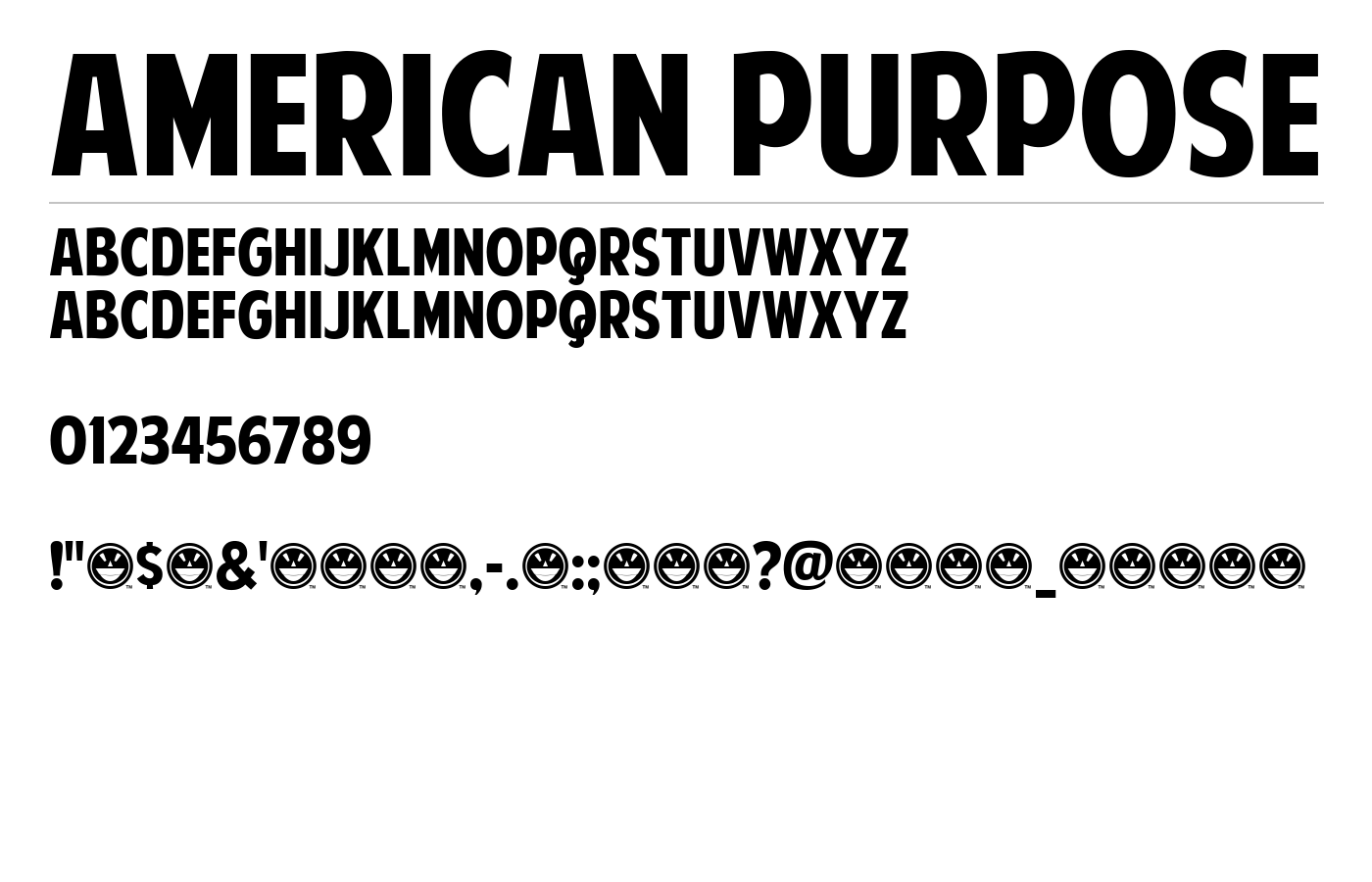
American Purpose STRIPE 1 is a bold, condensed sans-serif font with a strong presence and a clean, modern look. Its high x-height and uniform stroke weight give it excellent readability and impact, making it ideal for headlines, branding, and designs that require a confident, no-nonsense style. This font works well for contemporary projects that want to convey strength and clarity with a straightforward, professional tone.
American Purpose STRIPE 1 Font
About American Purpose STRIPE 1 Font
| Font family | American Purpose STRIPE 1 Font |